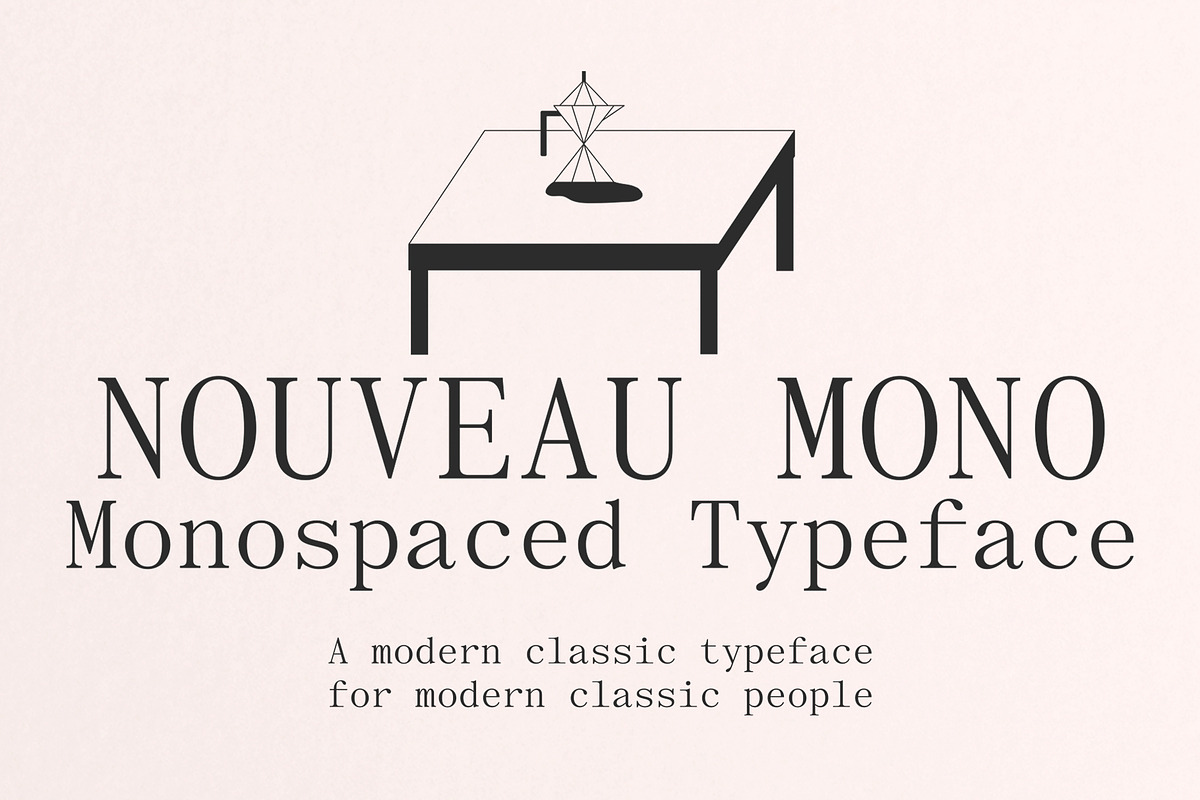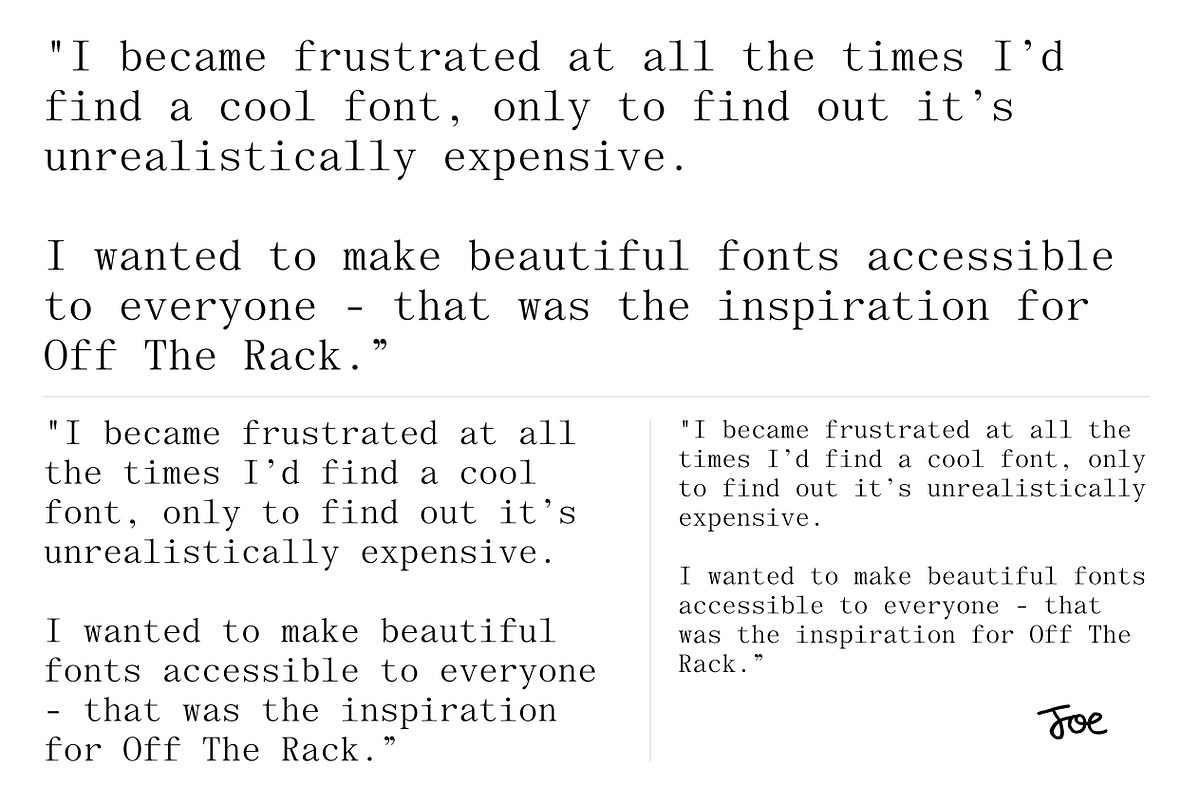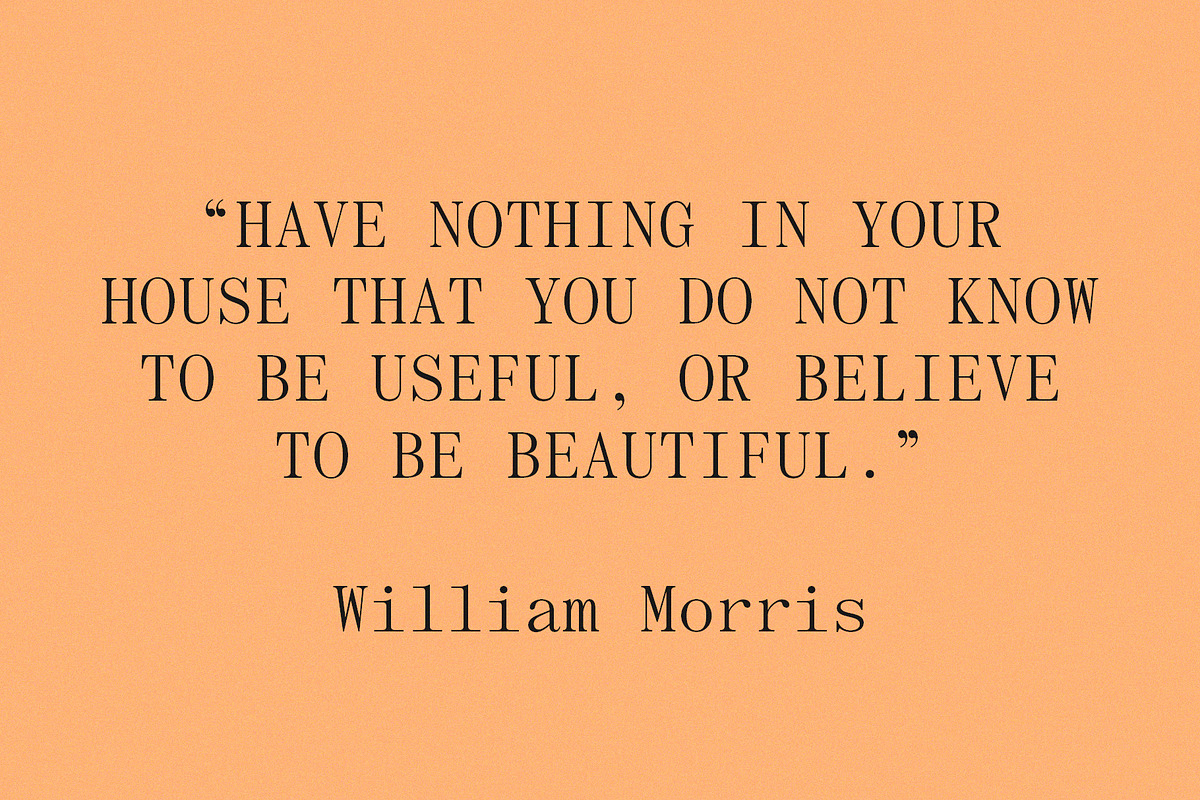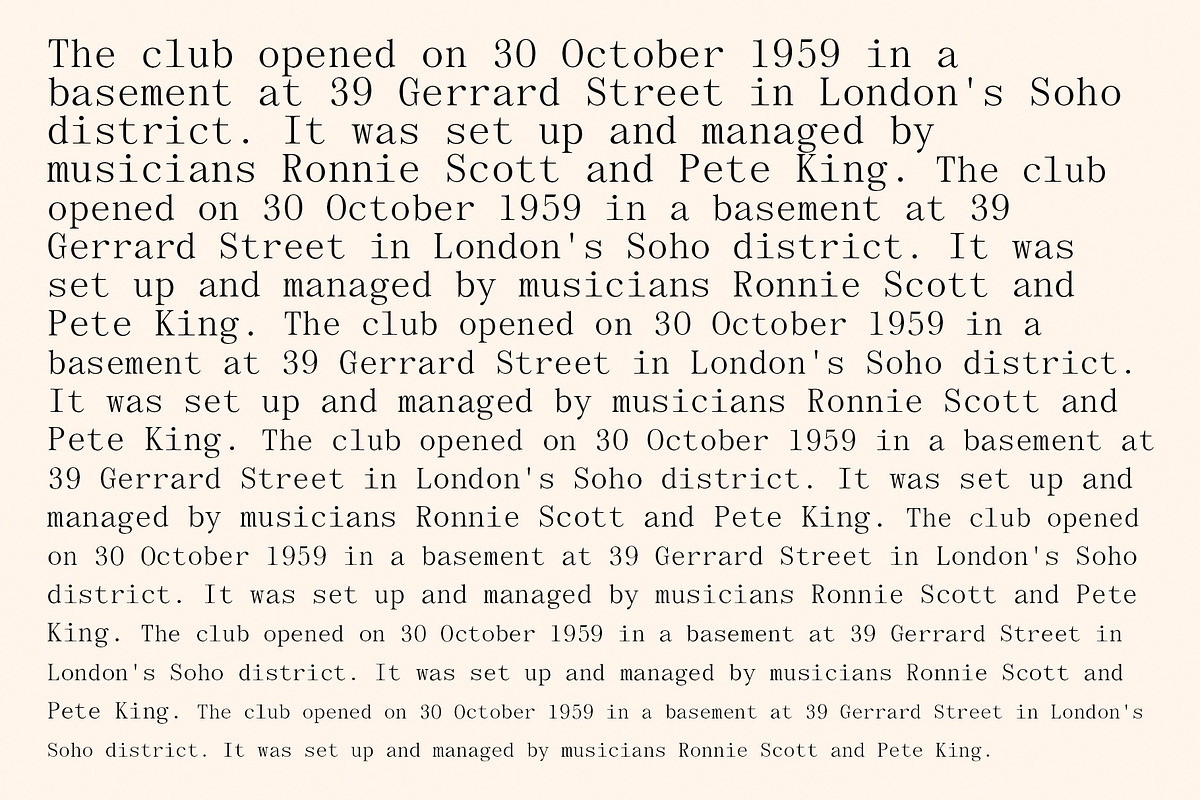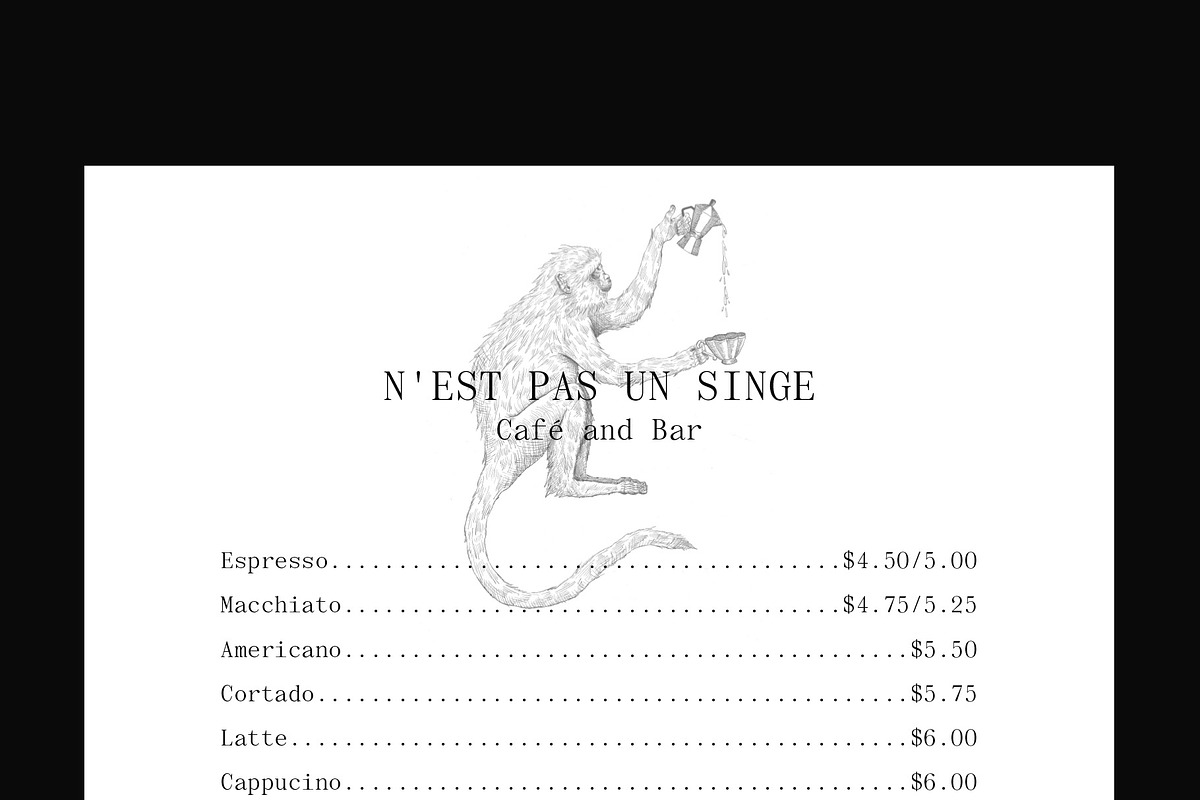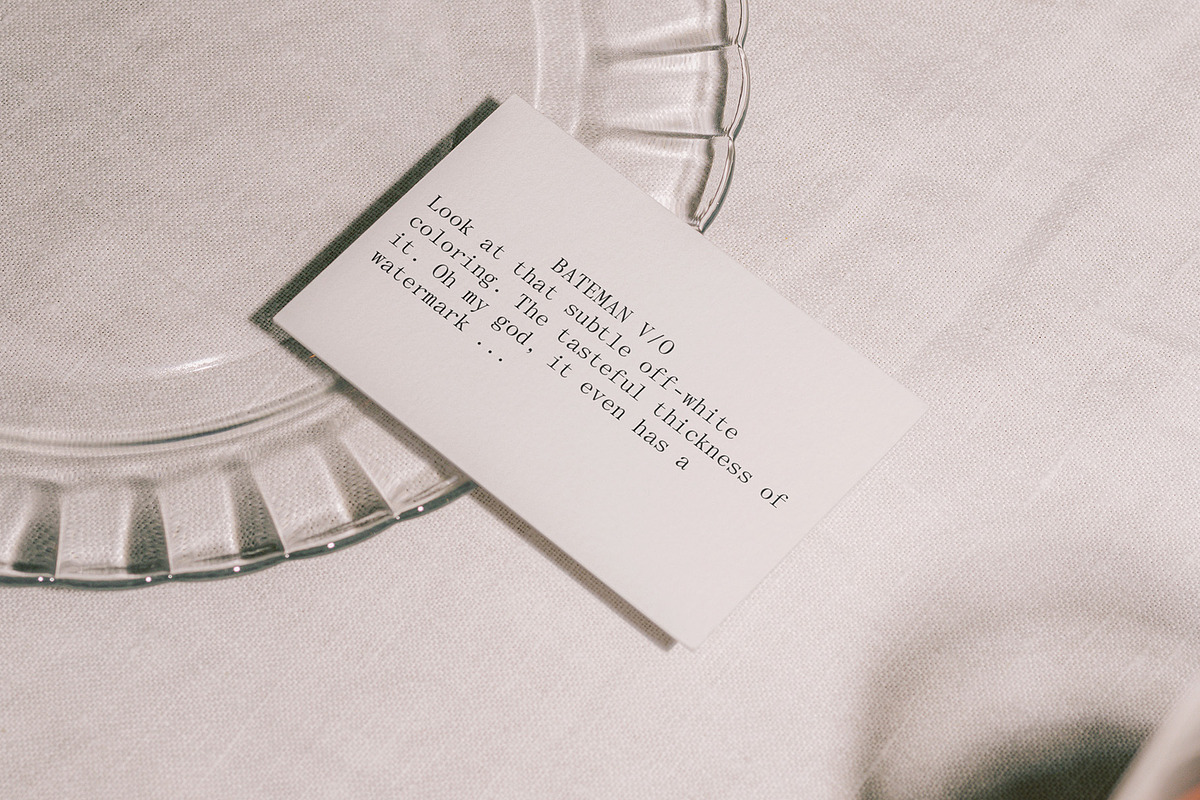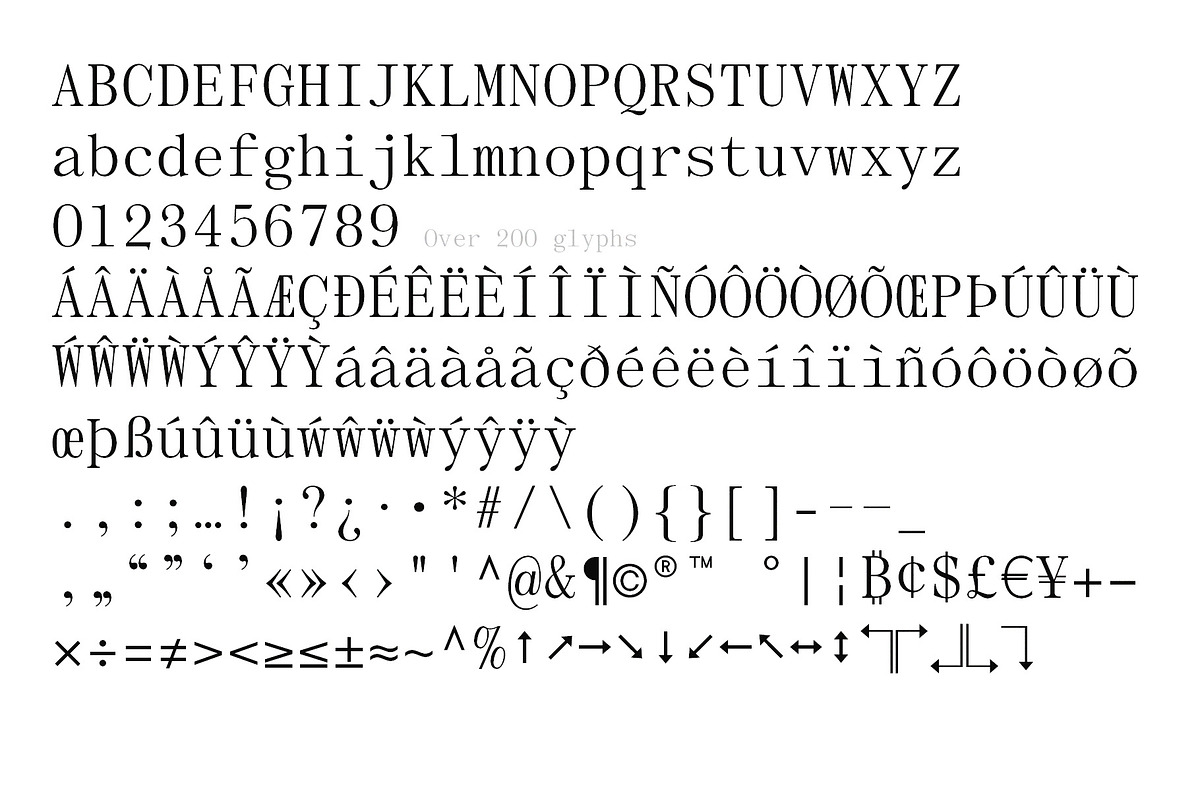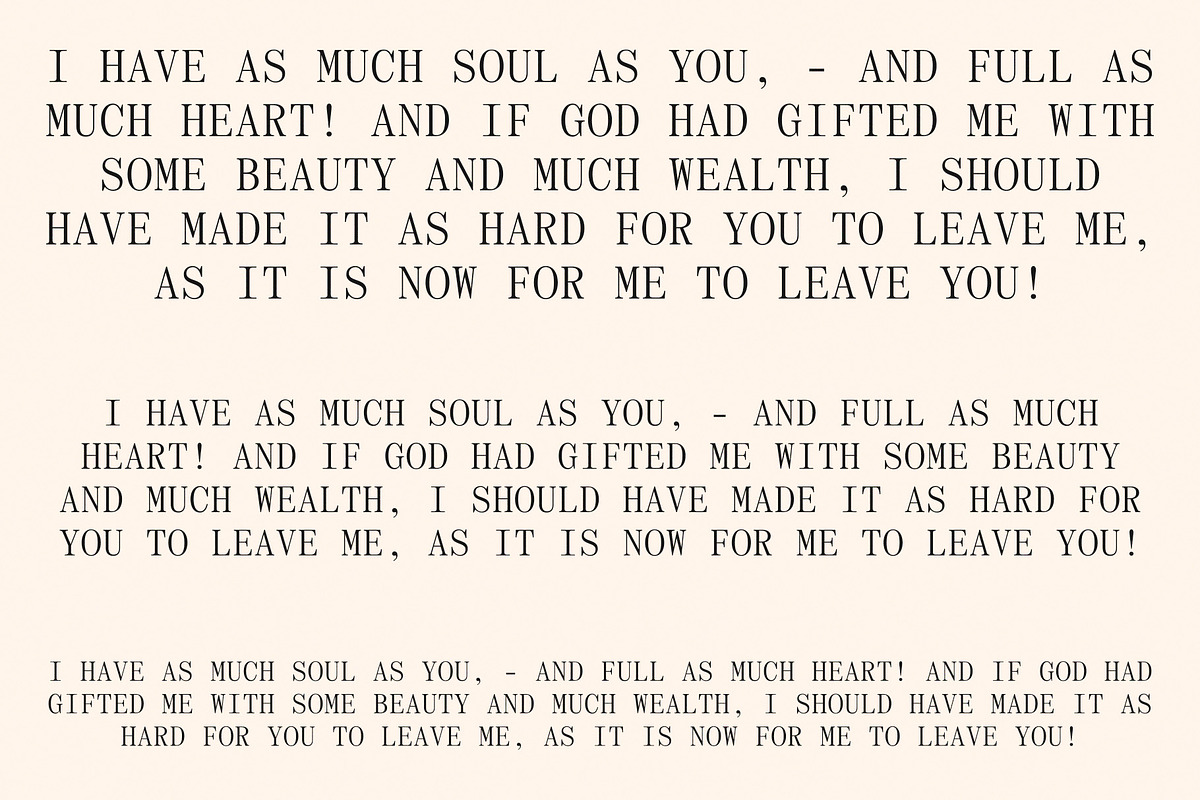
Nouveau Mono | Monospace Font
Cafe menus, clothes tags, wedding invitations... Nouveau Mono probably won't fix your low self-esteem, but at least your brand will look sexy.
And then you'll feel sexy too.
Nouveau Mono (or Moneau, if you're bougie enough) is 100% monospaced, meaning each character inhabits the same space as the next. This makes Nouveau Mono ridiculously easy to work with. Swap out single characters or words of the same length without having to adjust your whole layout! (I don't know if that's particularly helpful or not, but I think it's kinda neat).
Also excellent for writing the prettiest lines of code you'll ever see!
Contains uppercase and lowercase, numbers, extensive punctuation and support for over 60 languages